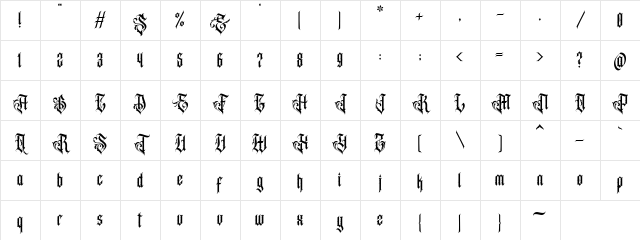
Complete Acinonyx Jubatus Personal Use O Regular glyph index. Displaying only characters natively supported by Acinonyx Jubatus Personal Use O Regular font.
Acinonyx Jubatus Personal Use O is a composed and adaptable typeface that performs quietly and consistently across a wide range of design contexts.